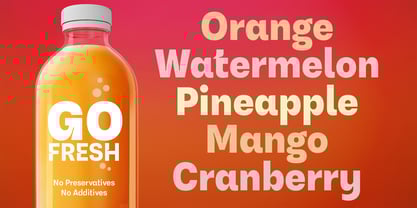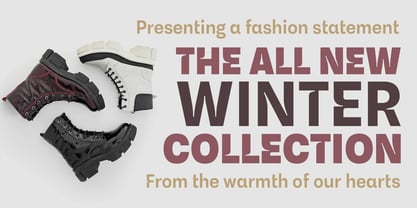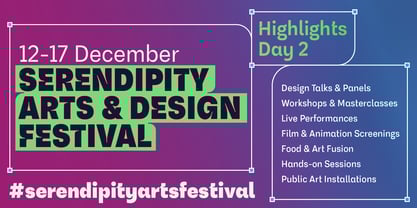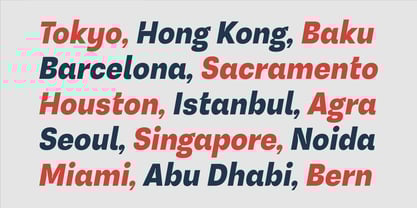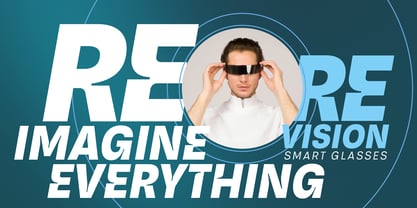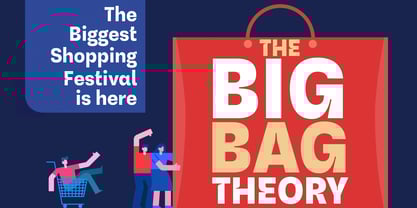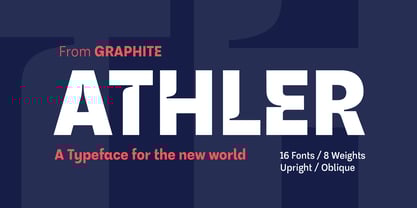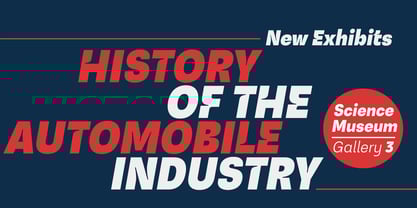
Athler
by Graphite
The Athler Font Family was designed by Deepak Dogra and published by Graphite. Athler contains 16 styles and family package options.
Athler is a sans-serif display typeface featuring clean, modern lines with a slightly quirky twist. Its defining characteristic lies in the curved nicks that add personality without sacrificing readability.
The font balances professionalism with charm, making it ideal for branding, packaging, social media, editorial design, or any project needing a touch of uniqueness. Eight weights and corresponding obliques give it versatility and range.
Athler is designed for those who want to push the boundaries of modern typography without going overboard.